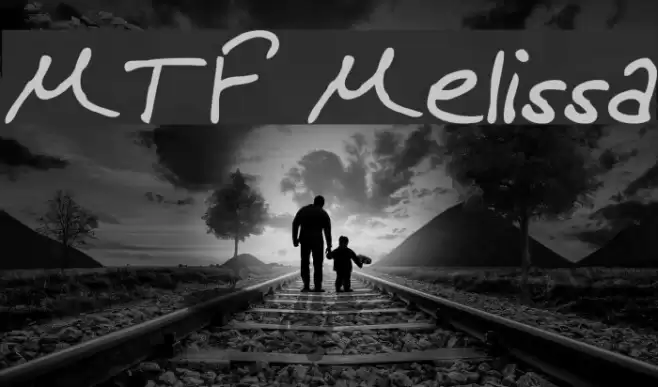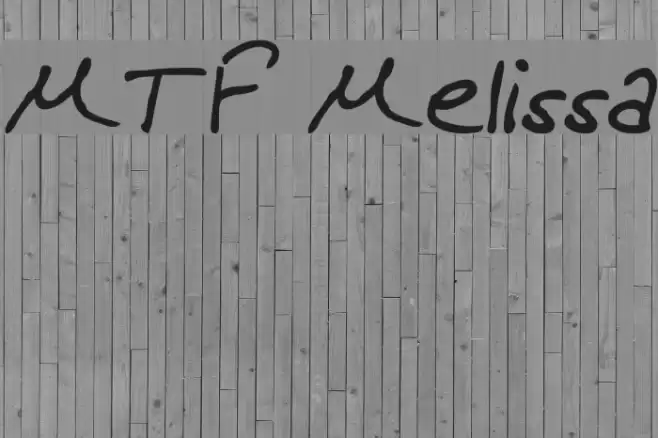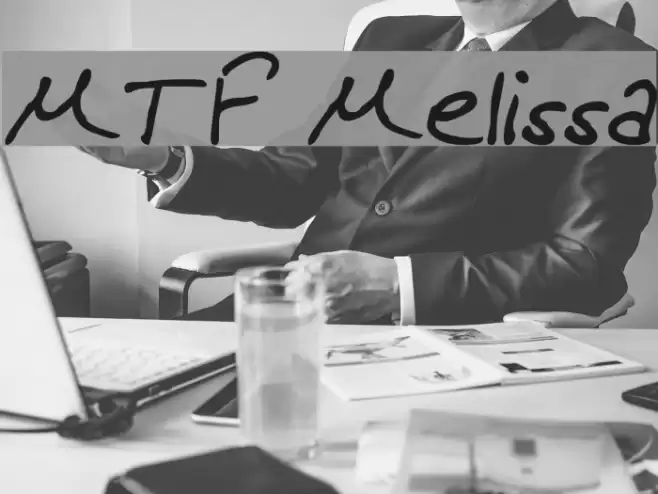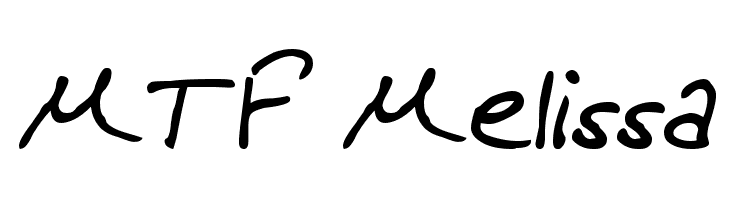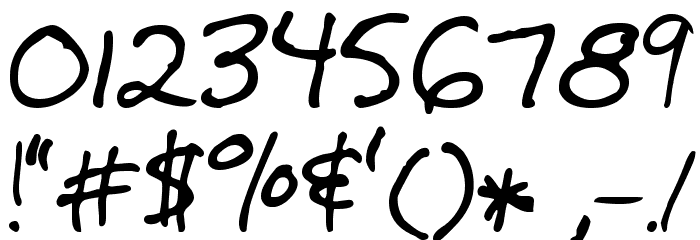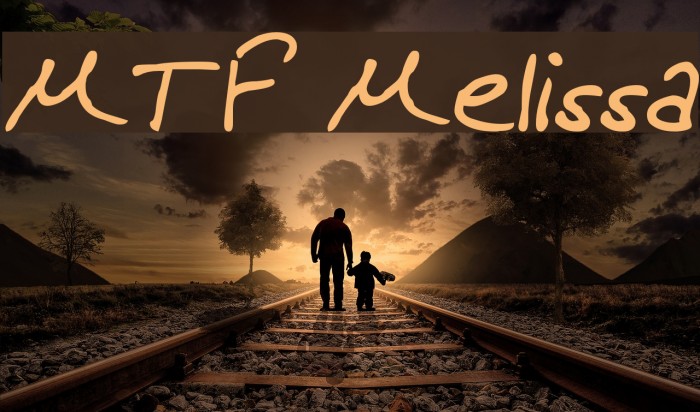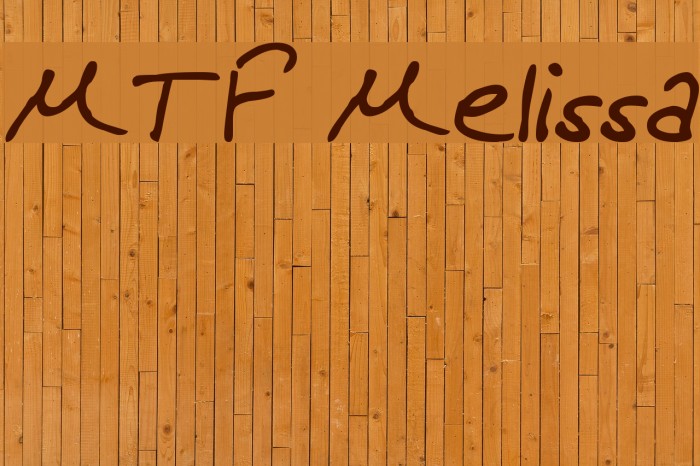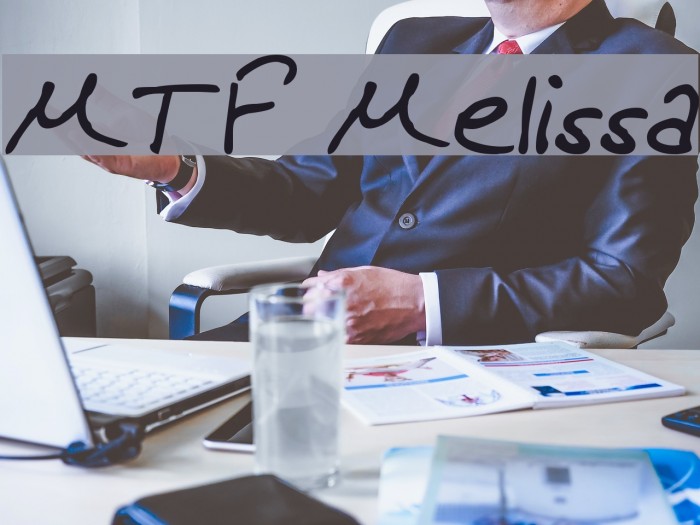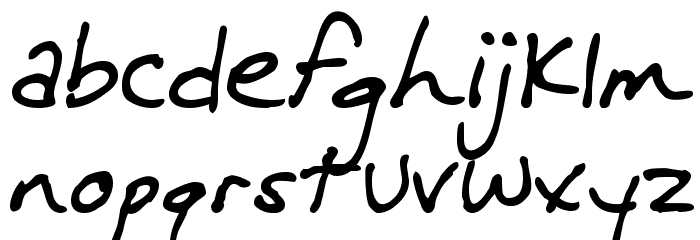
MTF Melissa Font
MTF Melissa Description
This font exudes a casual and handwritten style, characterized by its fluid and organic strokes. The letters are slightly slanted, giving a dynamic and personal touch to the text. The uppercase and lowercase letters maintain a consistent flow, with rounded edges and varying stroke widths that mimic natural handwriting. The numerals and special characters are crafted with the same informal flair, making them blend seamlessly with the alphabet. This font is ideal for projects that require a personal or informal tone, such as greeting cards, personal notes, or creative projects.
A casual, handwritten font with fluid strokes and a personal touch from Uncategorized fonts.
- Proposed Projects: Greeting cards, personal notes, creative projects, informal invitations.
- Overall Style: Casual, Personal
- Use Case: Headlines, Informal text, Creative projects